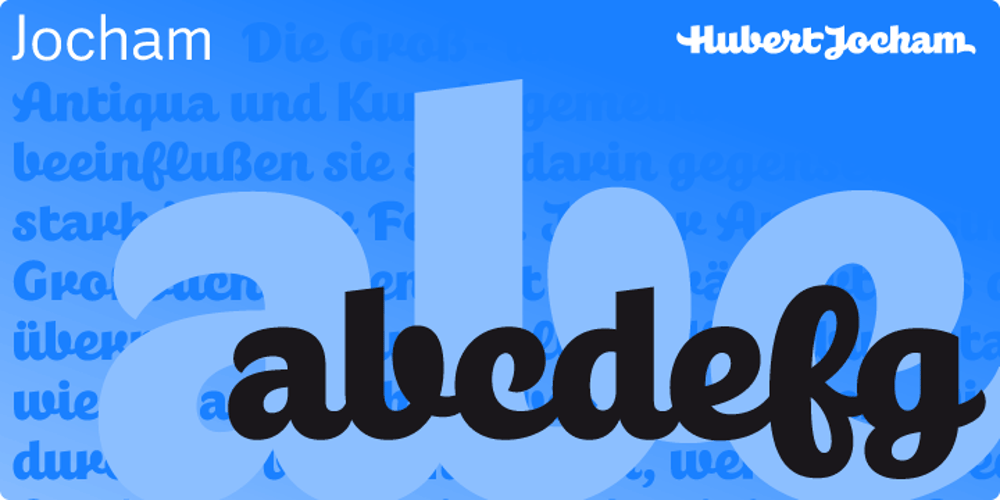
Jocham Font Family was designed by Hubert Jocham and published by Hubert Jocham Type. Jocham contains 2 styles and family package options. Since I have my new logotype people are asking me about the typeface it is based on. But it did not exist and I did not believe that it would actually work. I still love my logotype and so I went on to try to make it work as a font. After many different versions and some doubts I am glad to present Jocham. It is the first typeface with my name. For an obvious reason. There is only one weight with an italic. I tried different weight, but they were all not as strong as the final.